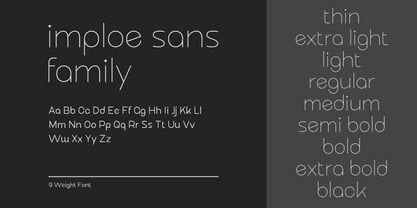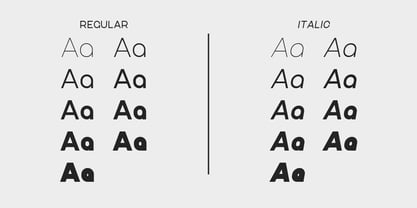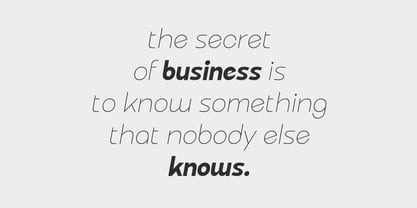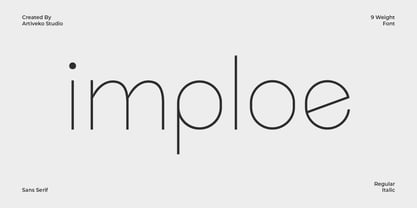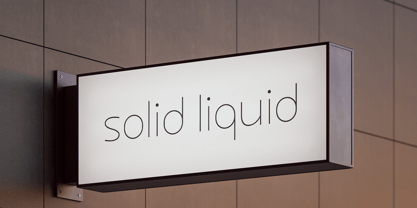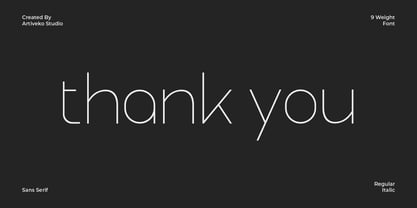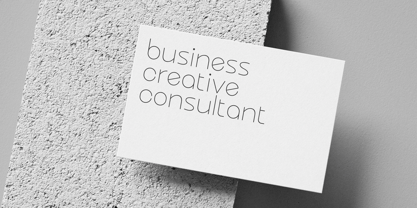
Imploe
by Artiveko
The Imploe Font Family was designed by Iwan Alwan and published by Artiveko. Imploe contains 18 styles and family package options.
Imploe is a modern sans serif font family crafted for versatility and sophistication. With clean lines, smooth curves, and a contemporary structure, Imploe excels in branding, editorial, web, and UI design. It includes multiple weights, multilingual support, ligatures, and alternates—making it a reliable and stylish choice for both display and text settings across various design projects.
Designers: Iwan Alwan
Publisher: Artiveko
Foundry: Artiveko
Design Owner: Artiveko